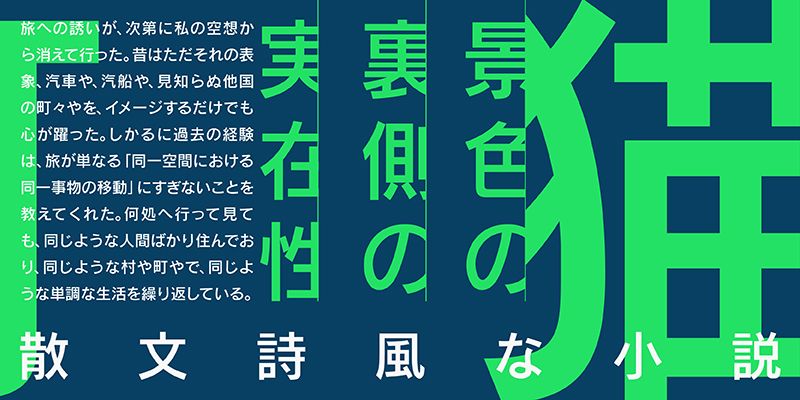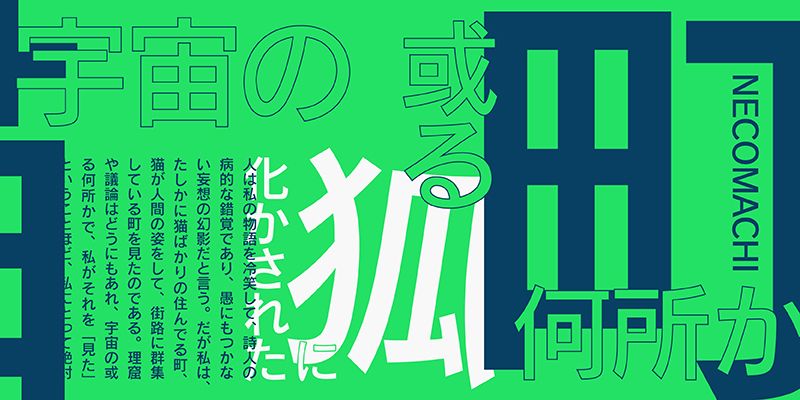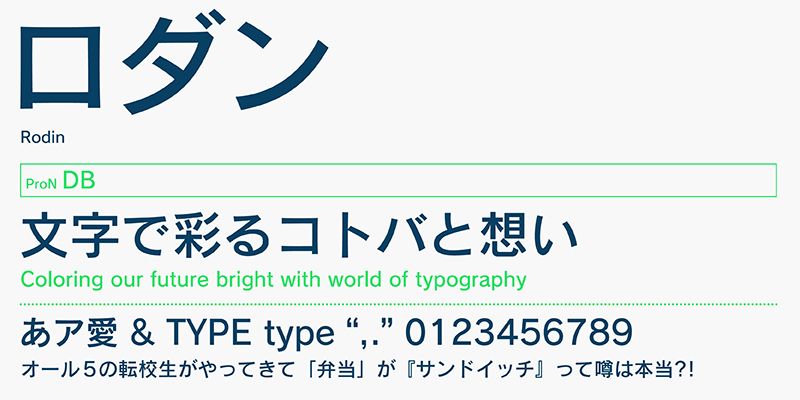
FOT-Rodin ProN is representative of Monotype (former Fontworks). In spite of its linearity, this gothic (sans-serif) typeface has a “mellow feeling”. Its kanji (ideographic) and kana (syllabic) characters have wide counter spaces, so that characters will be beautifully aligned in text composition.